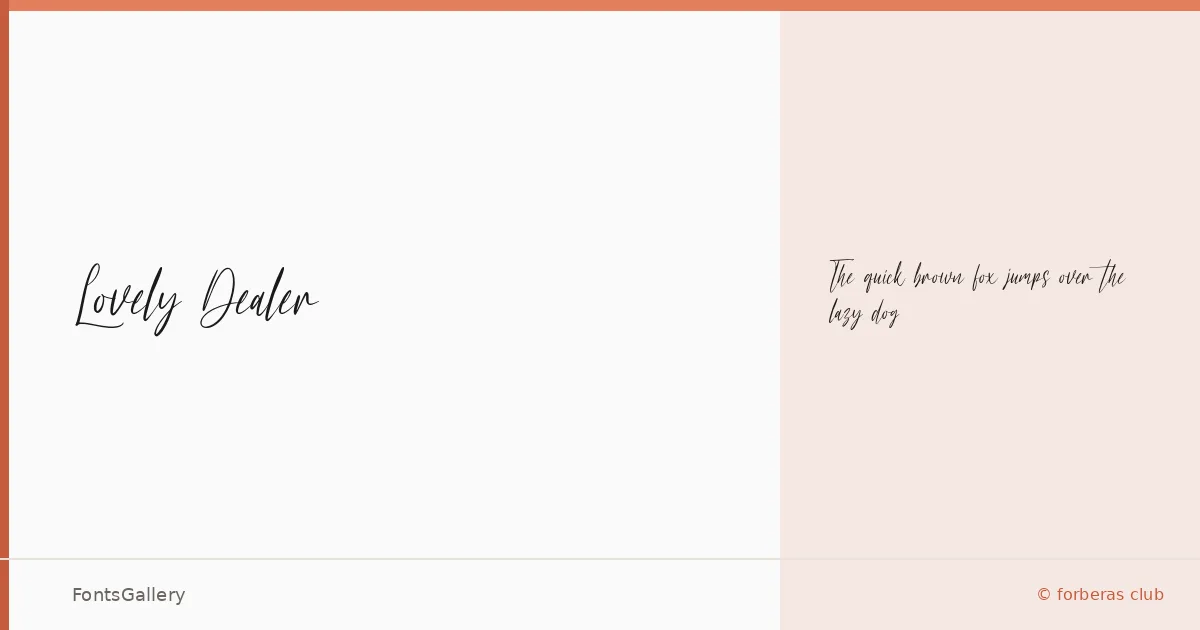
About Lovely Dealer Font
There is a particular looseness to this script — the kind that feels hand-lettered rather than mechanical, with strokes that lean and flow in the way a practiced calligraphic hand would move across good paper. It comes from forberas club, the design studio behind the forberas brand, and carries their trademark in its name. The single Regular cut is delivered as an OTF file, clean and ready to set.
This is a classic, romantic script with an elegant character that sits comfortably in the tradition of wedding and occasion lettering. The letterforms carry the warmth and movement you expect from that genre — connected strokes, generous flourishes, and a rhythm that reads as both refined and approachable. With only the one weight available, the design leans entirely on its inherent personality rather than a range of styles, which means it works best where the face itself is the statement.
The mood suits invitation cards, wedding stationery, greeting cards, and logo work where a romantic or classic tone is the brief — think save-the-dates, packaging for artisan goods, or boutique branding. It pairs well against the crisp geometry of Helvetica or Abrade, the editorial warmth of Canela or ABC Arizona, and the refined serif structure of Anglecia Pro, all of which give it a clean counterpart to anchor layouts.